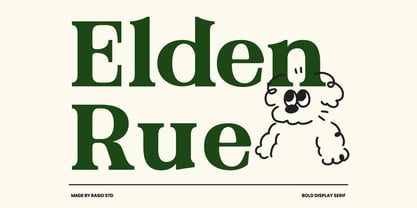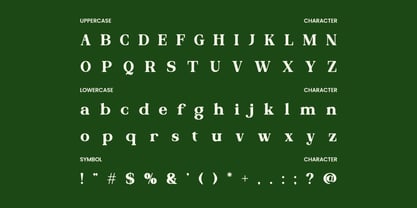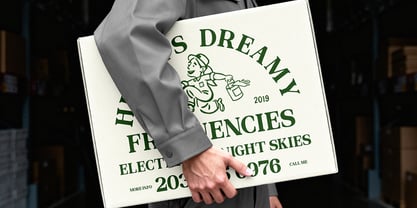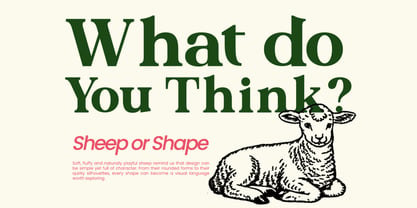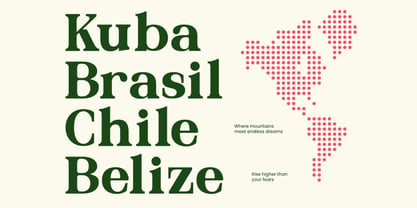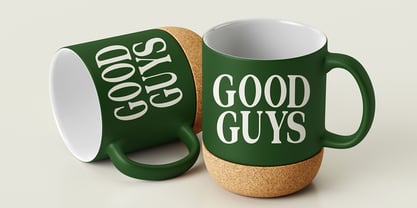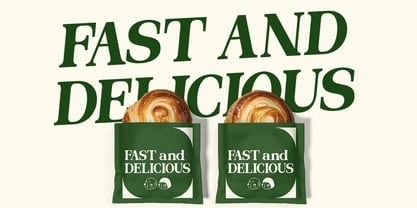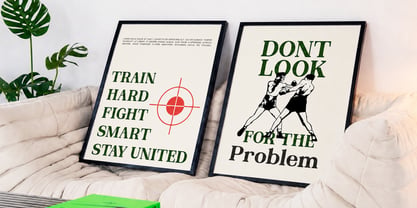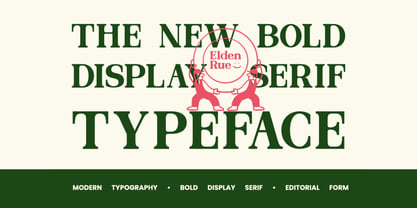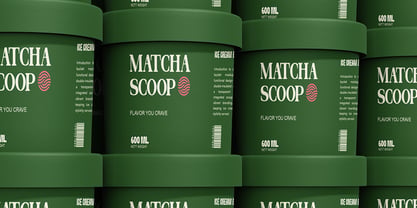
Elden Rue
Elden Rue is a bold display serif with a substantial, poster-like character, combining heavy strokes with sharply defined serif structures. The uppercase letters have broad, weighty proportions that create a strong visual block, making individual characters remain prominent even when used at large sizes. Its lowercase forms carry the same sturdy foundation while introducing more varied shapes and proportions, giving words a more expressive rhythm without losing the font’s assertive character.
Relevance and Use Case is perfect for fashion and lifestyle branding, editorial artwork, cultural posters, packaging concepts, book covers, promotional graphics, product naming, and other compositions centered around prominent lettering. Its heavy serif construction gives headlines, names, and short phrases a substantial presence, while the combination of uppercase and lowercase characters allows designers to vary hierarchy without changing the overall typographic personality.